I have an article that is in press but the editorial has messed up all the symbols in figures (symbols used are not the same as in the LaTeX main document). I would like to know if I can find out what packages are used to create the symbols in the attached image so I can recreate all figures. The bold symbols seem to be from the stix package, but I have no idea how to recreate the greek symbols. I found this post with a lot of different greek alphabets but none of them seems to match the one they use in this Springer journal.
This is the output of pdffonts:
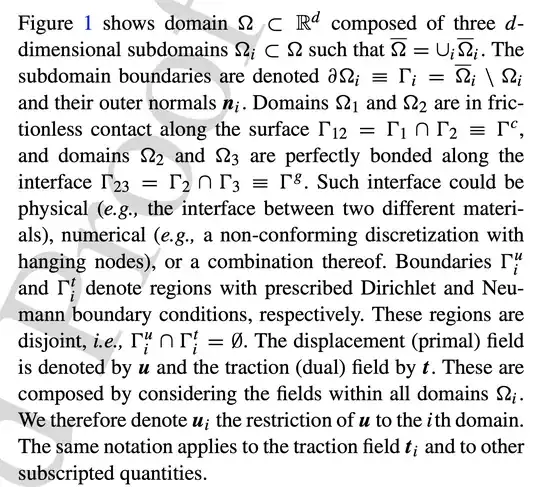
pdffontsor the viewer font menu, you don't need to guess. – David Carlisle May 20 '22 at 15:40\partialsymbol, nor the Omega, I'm afraid. Use NewTX. – egreg May 20 '22 at 15:49mathtimewhich from very oldY&Yformat.... – MadyYuvi May 20 '22 at 16:20